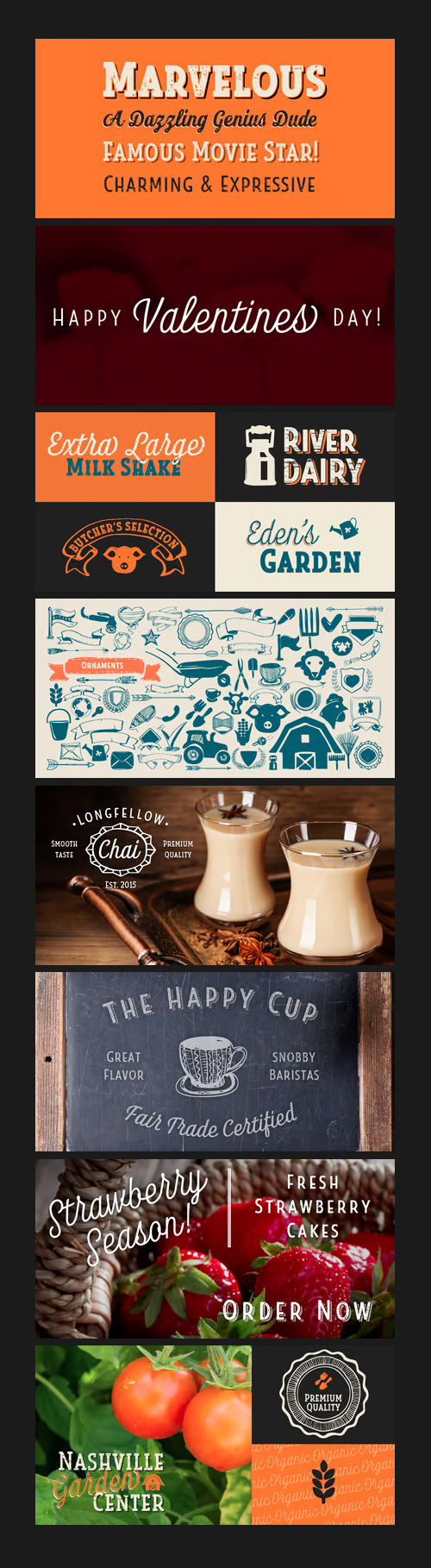
- Look, folks! From what may just be the vernacular sign capital of the world, Chattanooga, Tennessee, it’s a brand new hyperfamily from insigne! Look includes three different related fonts, with three weights each. That’s over 70 fonts! There are over 70 fonts to choose from, including subfamily sans, serif, script and ornament fonts! You can't go wrong. To get the most bang for your buck, order the whole Look family now!